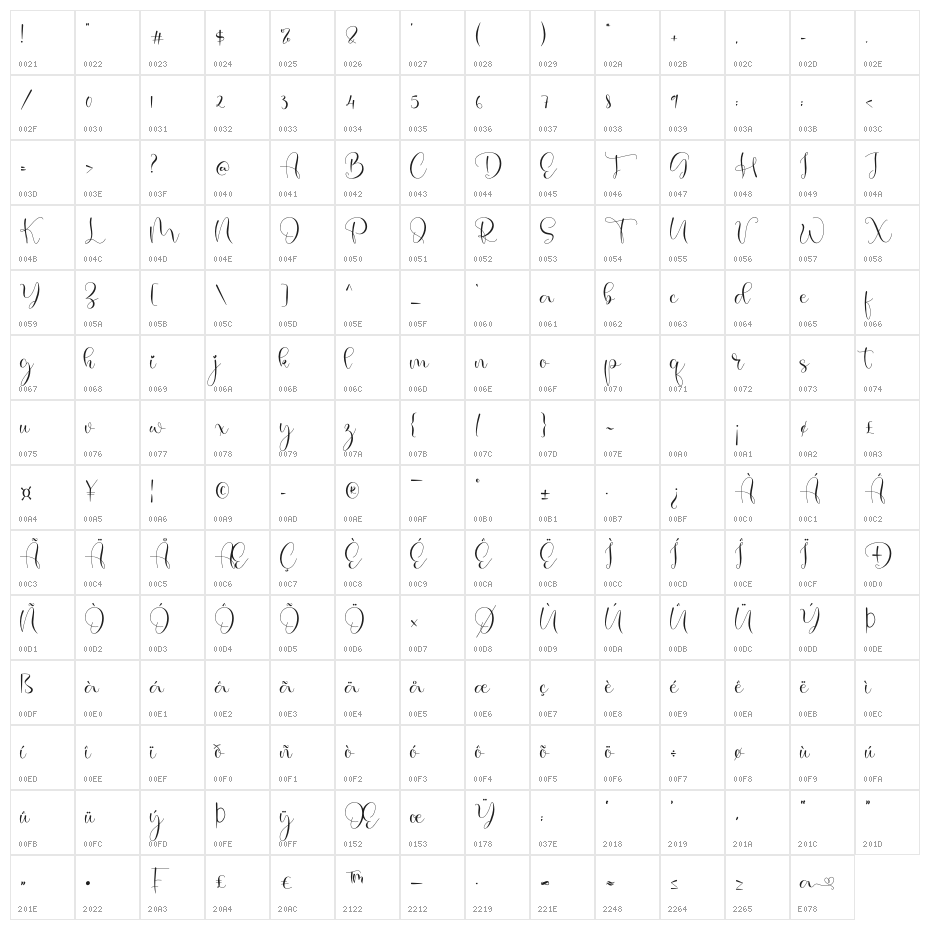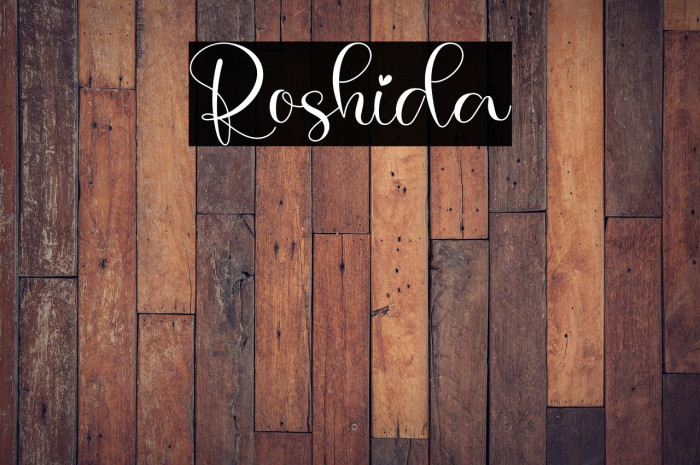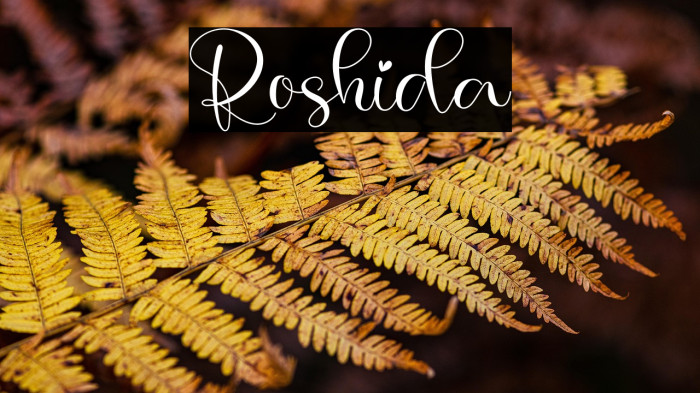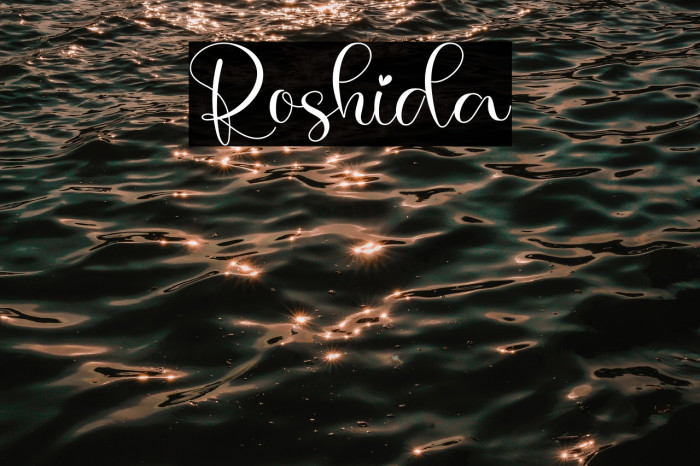
Roshida Font
Roshida Description
This elegant script font features flowing, interconnected letters with a calligraphic style. The uppercase letters are ornate and decorative, with sweeping curves and flourishes that give a sense of movement and grace. The lowercase letters maintain a consistent style, with loops and swashes that enhance the font's fluidity. The numerals are distinct yet harmonize with the overall aesthetic, while the special characters are thoughtfully designed to match the font's sophisticated appearance. This font exudes a sense of elegance and refinement, making it suitable for formal and decorative applications.